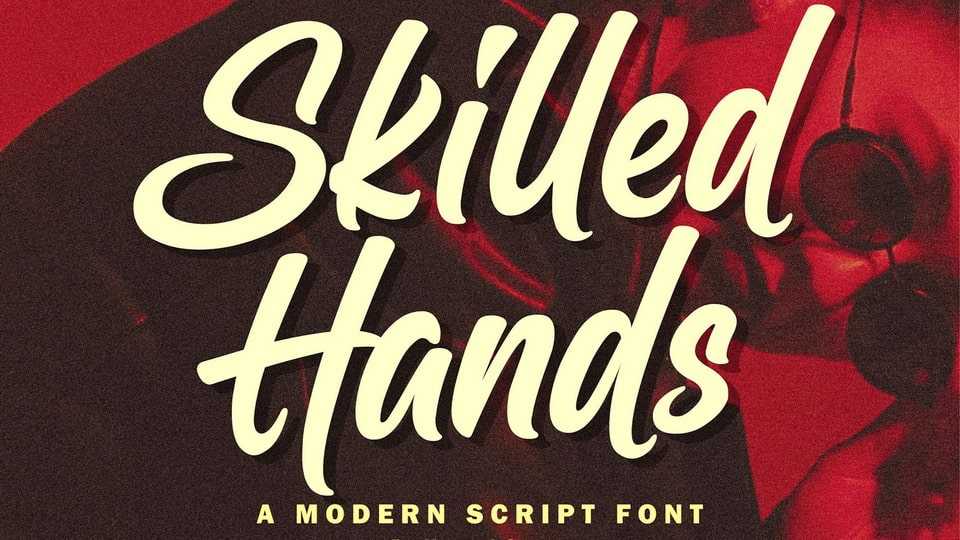
Download Skilled Hands font, a modern calligraphy typeface with a natural typeface. This dynamic font is ideal for designing handwritten quotes, websites, branding.